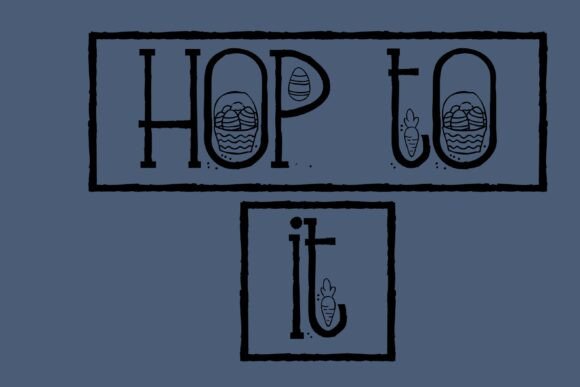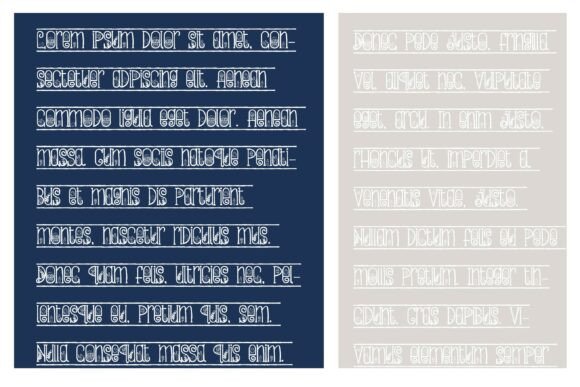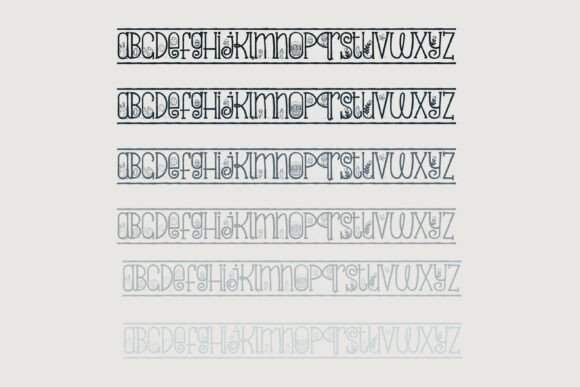
Easter Border Font
This hand-crafted font is a whimsical hand-written serif with Easter imagery throughout. The font is contained in a self-made border. Type the rectangle brackets to finish border off!A hand-crafted font is a font that is designed to look like it was written by hand. It is often used for invitations, greeting cards, and other items. Handwritten fonts can be either formal or informal, and they can be used for a variety of purposes.